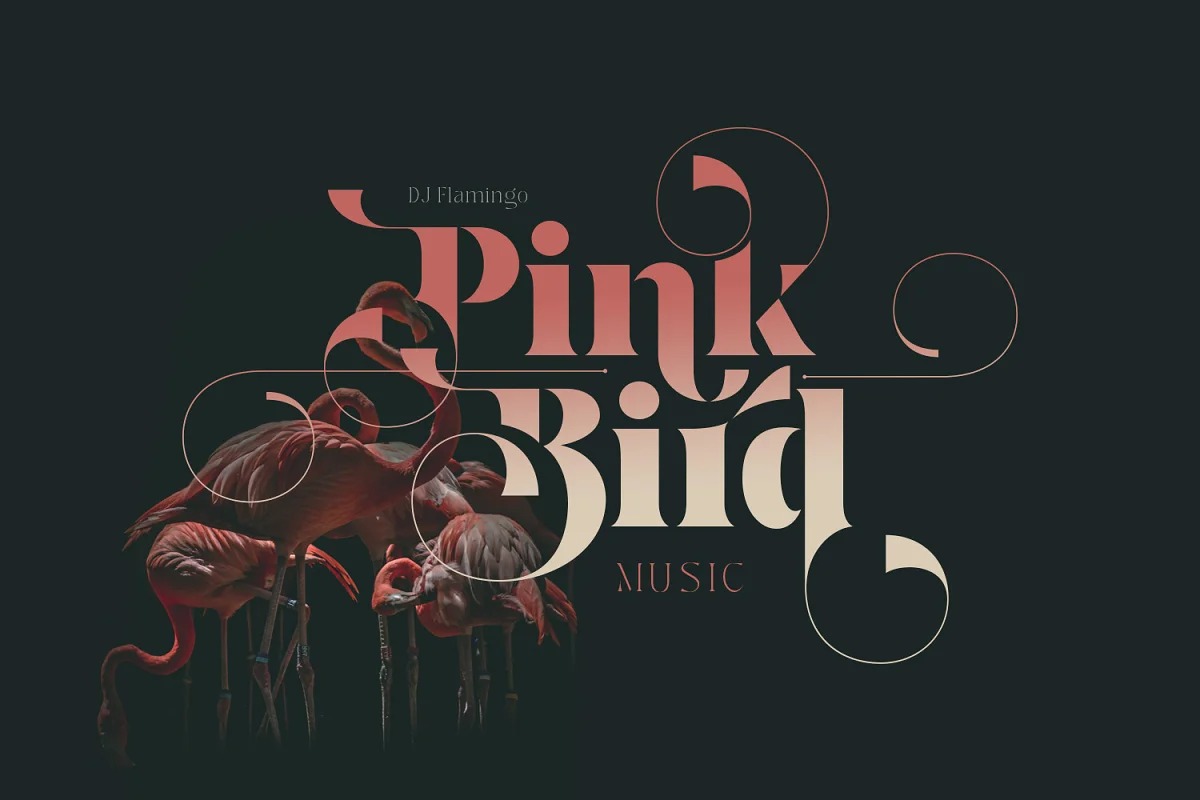
Parka Serif Font
It’s a serif font in the form of a unique typographic design. The strong and masculine looks are matched by softly curved alternates for the balance of form and shape. Very suitable for making your choice of design work from invitation cards to magazines, logos, branding, signage and many other creative projects.